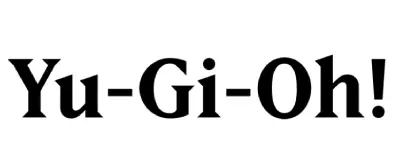
The Yu-Gi-Oh! Font is a bold and distinctive typeface closely associated with the iconic logo of the Yu-Gi-Oh! trading card game and media franchise. This font exudes a dramatic and mystical vibe, perfectly aligning with the franchise’s themes of ancient Egyptian lore and magical card battles. Its sharp, wedge-shaped serifs and bold design make it a standout choice for branding, logos, and titles.
Similar Fonts to Yu-Gi-Oh! Font
If you’re searching for fonts that resemble the Yu-Gi-Oh! Font or capture its essence, here are some excellent alternatives:
Matrix II Bold by Zuzana Licko – This is the closest match to the Yu-Gi-Oh! logo font, featuring similar wedge-shaped serifs and a bold, dramatic style.
Squealer Embossed by Ray Larabie – Another similar font that shares the bold and impactful design of the Yu-Gi-Oh! Font.